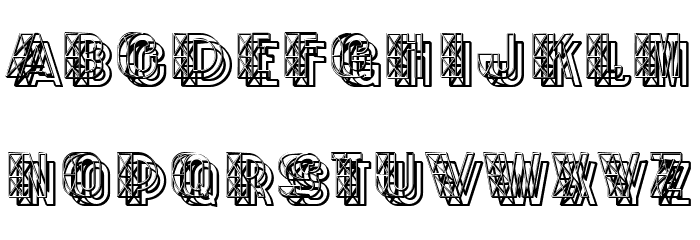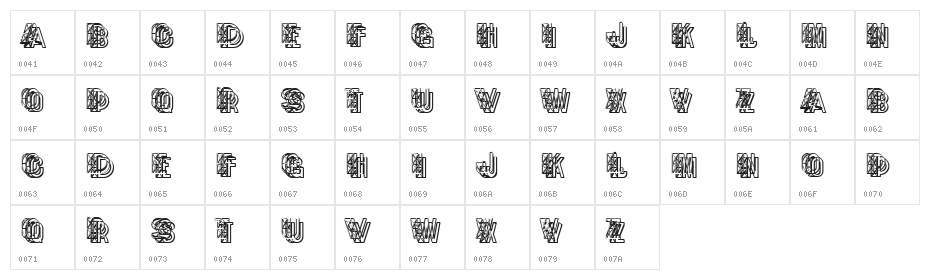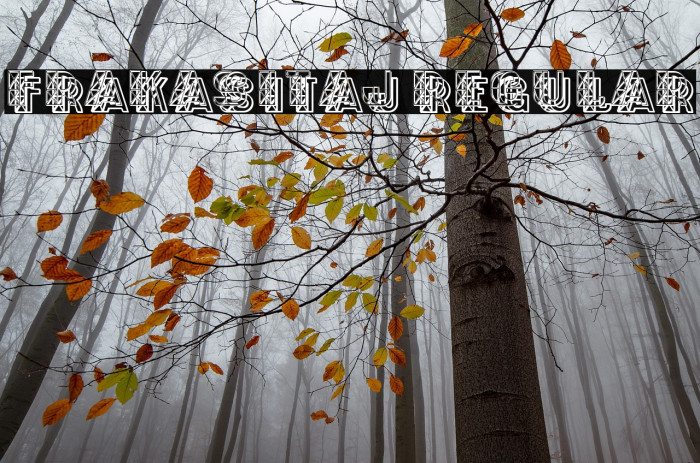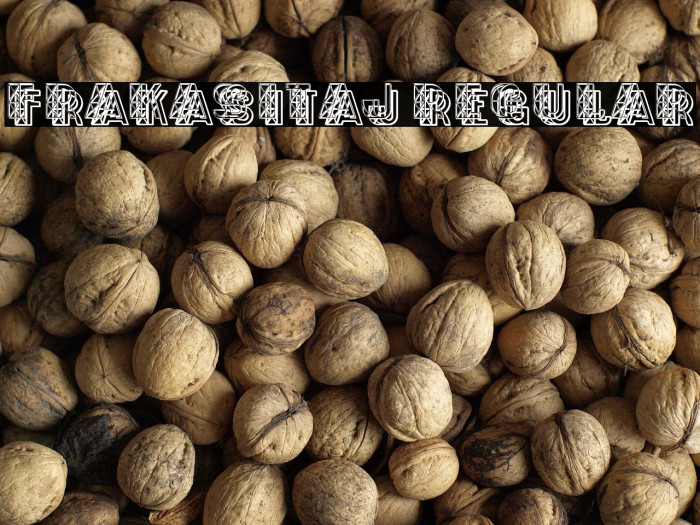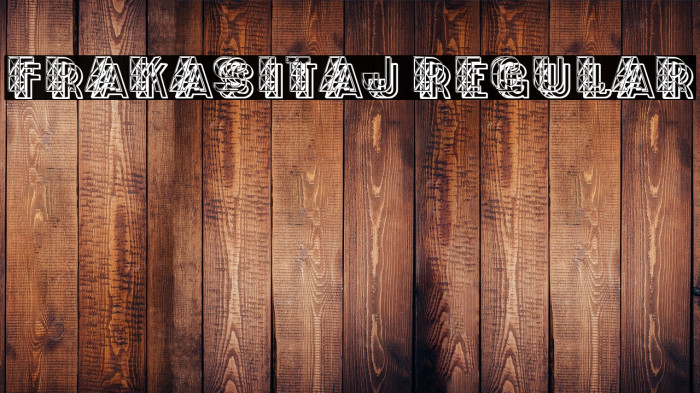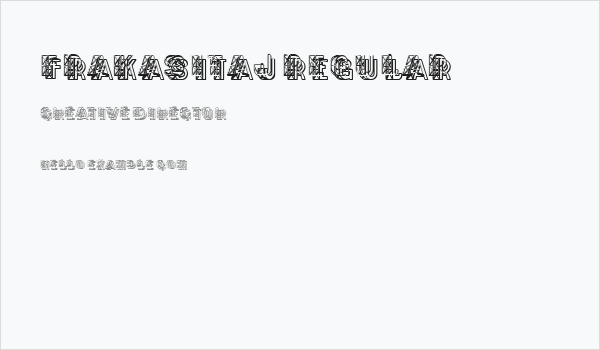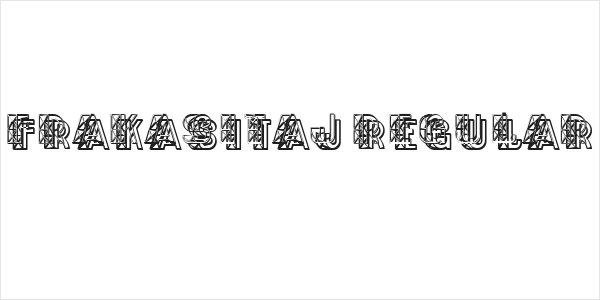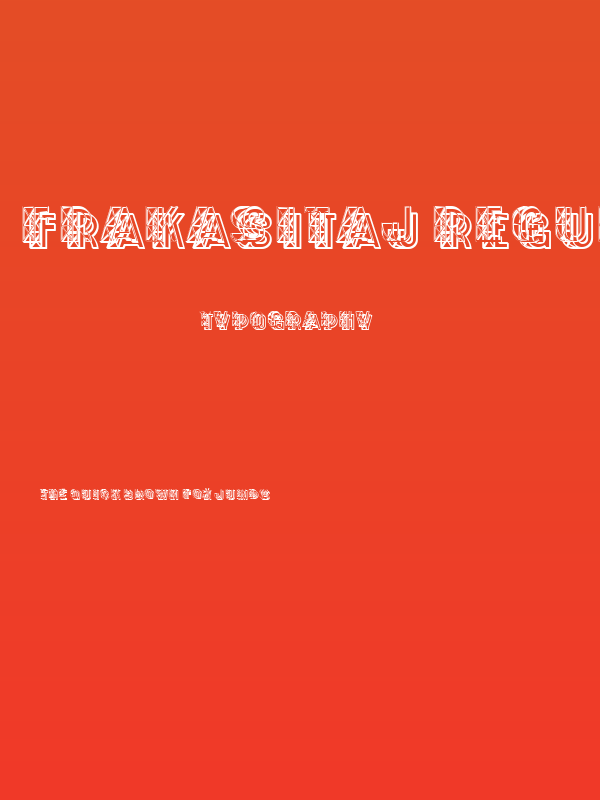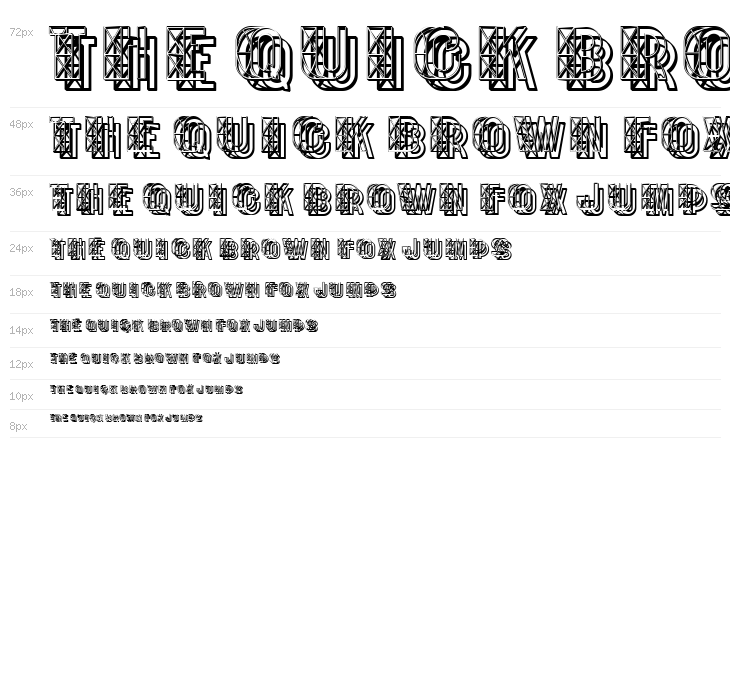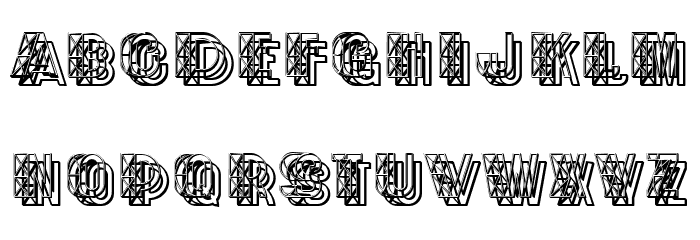
Frakasitaj Regular Font
Frakasitaj Regular Description
This font features a bold, geometric design with intricate line patterns filling each character. The letters are uppercase and have a three-dimensional appearance due to the overlapping lines and shapes within each character. The style is highly decorative, making it stand out with its complex and artistic look. The font's unique structure is reminiscent of abstract art, with a modern twist that combines both symmetry and chaos. It's perfect for projects that require a bold statement or an artistic flair.